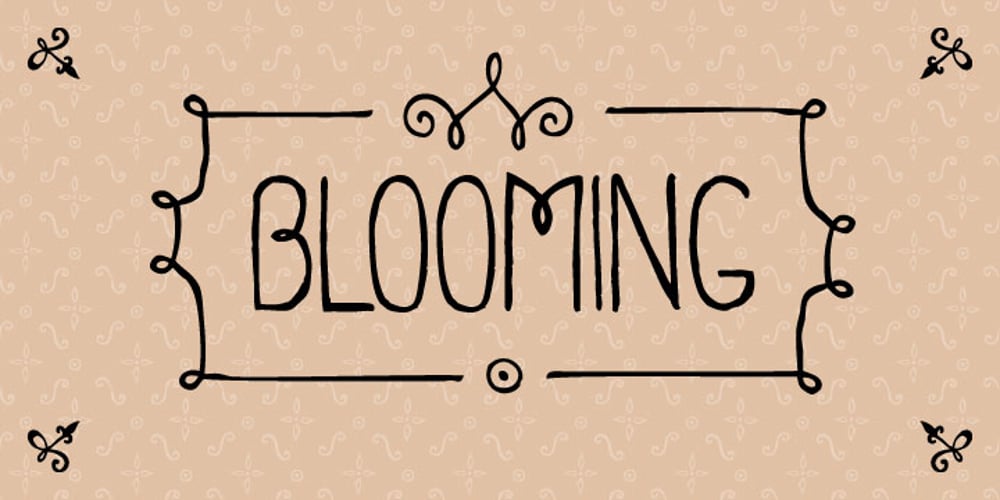
Blooming
Blooming font
Blooming Font Family was designed by Maria Luarvik and published by Gaslight. Blooming contains 2 styles and family package options. Naive handmade font with numerous ligatures and alternatives. Plus symbol font with patterns, frames, balloons and other decorative elements.